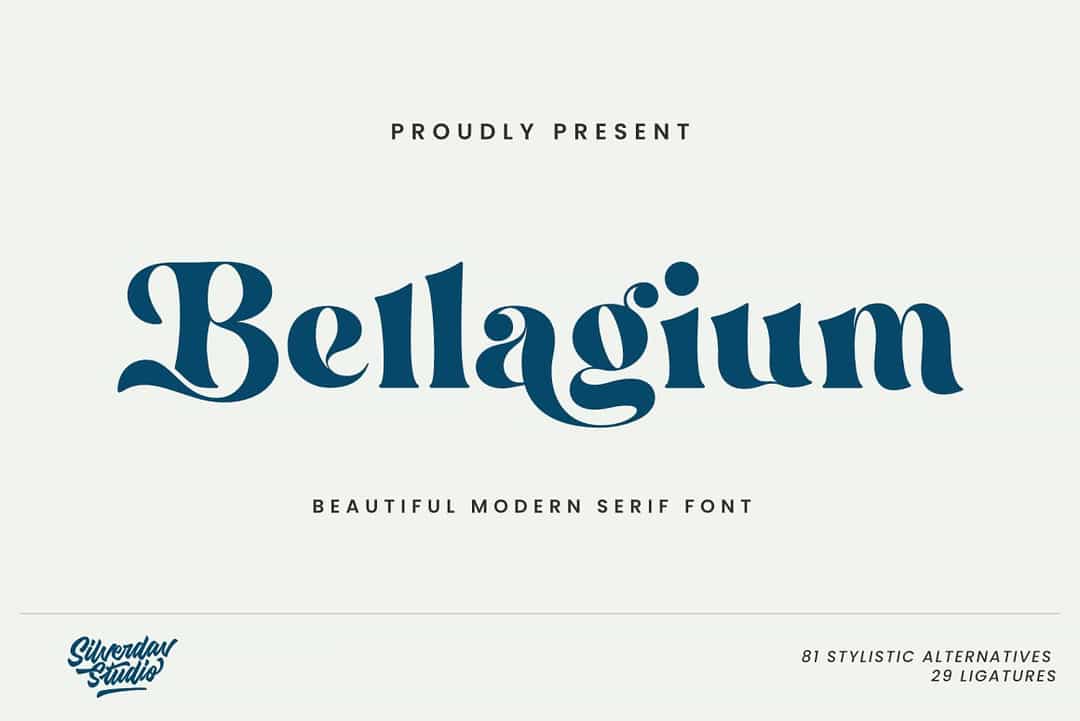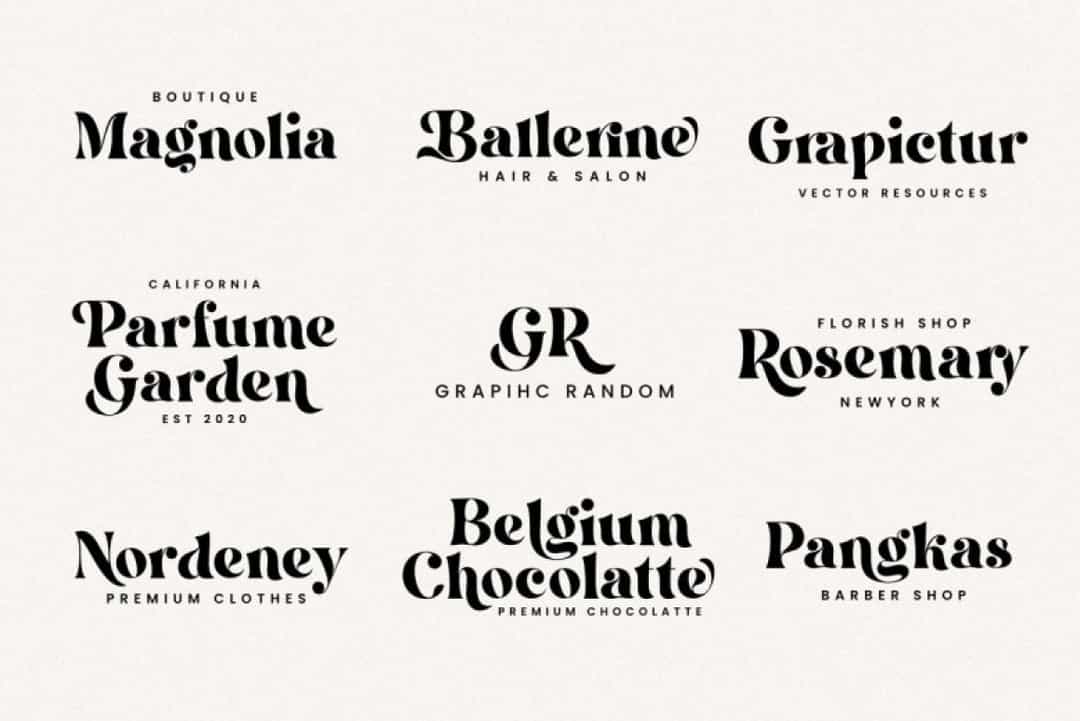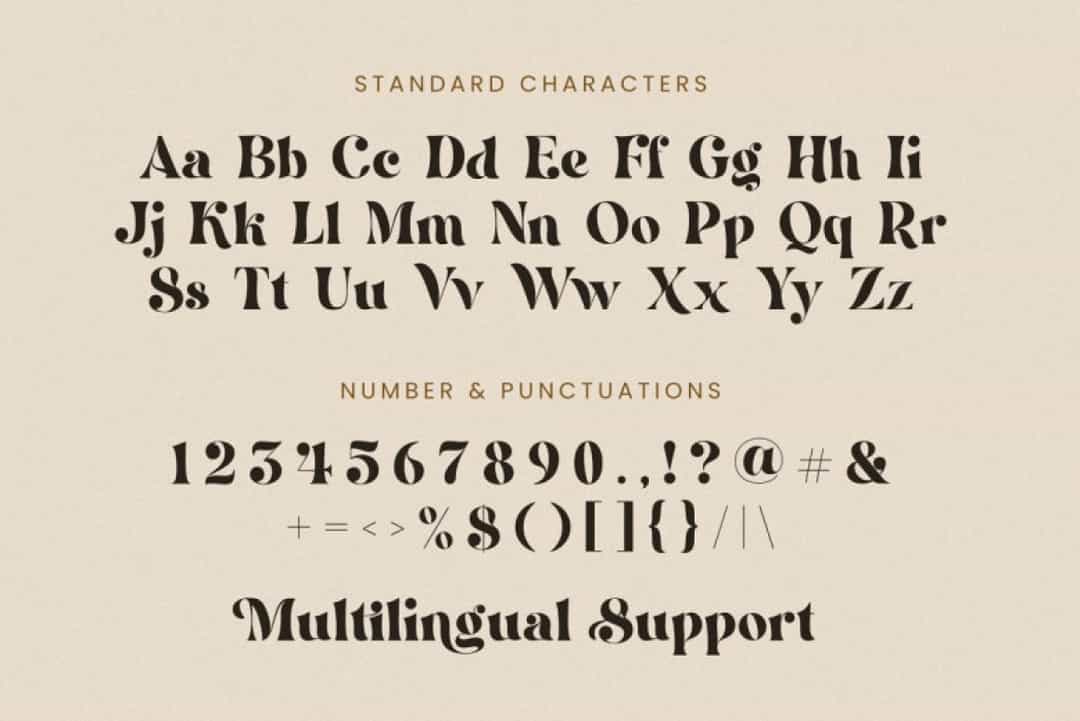
” Bellagium Font” stands out with its contemporary style and distinctive curves that create an elegant and special appearance to your designs. There are various alternatives available to you for increasing their attractiveness; Ligatures for instance can make any project appear even more beautiful!